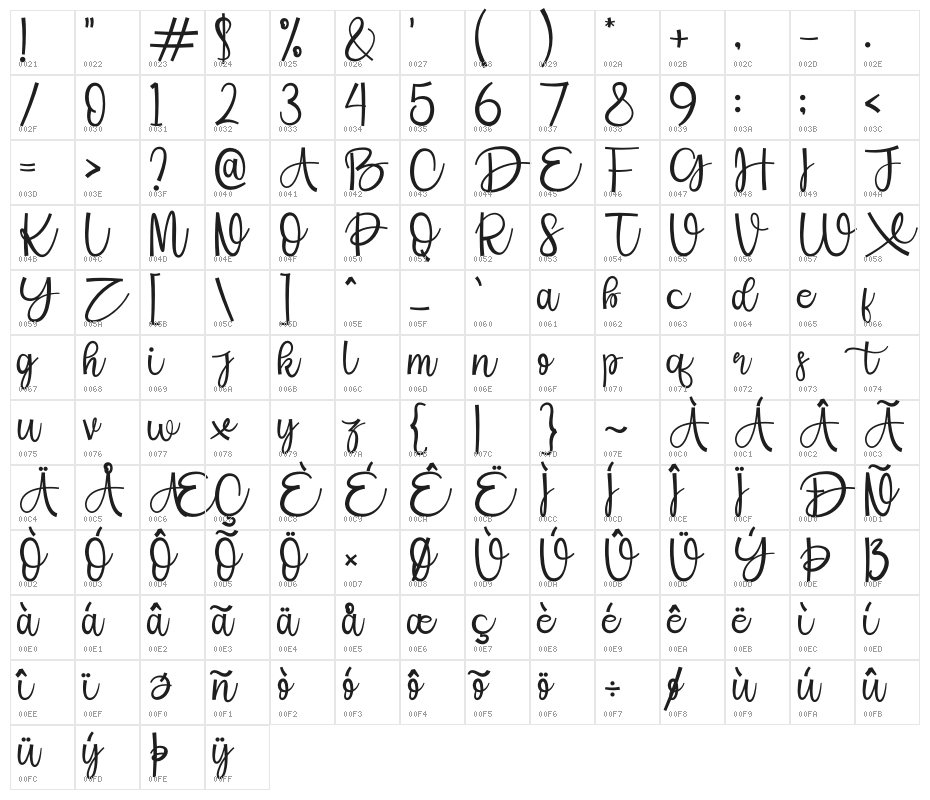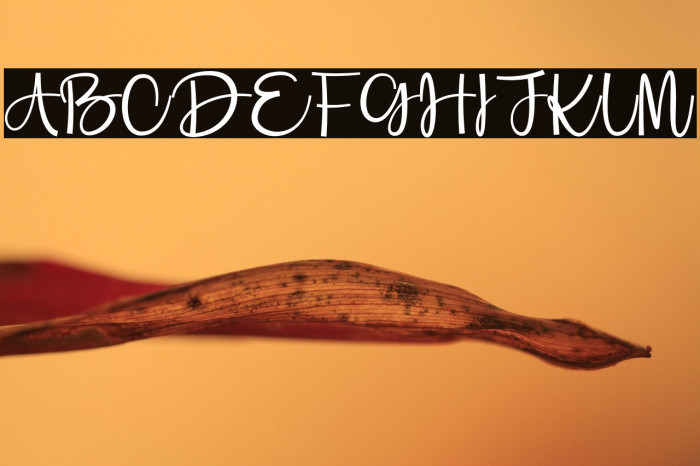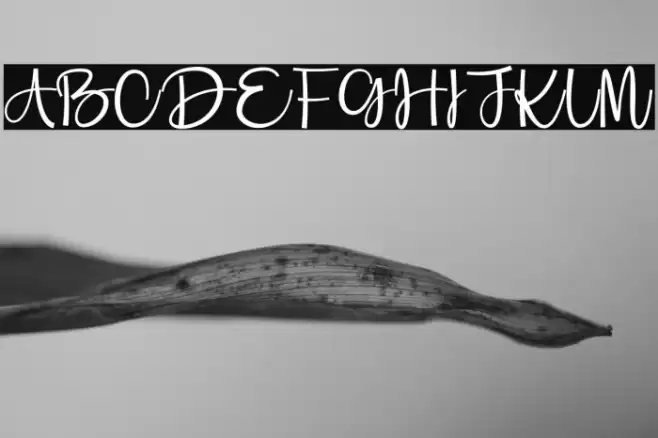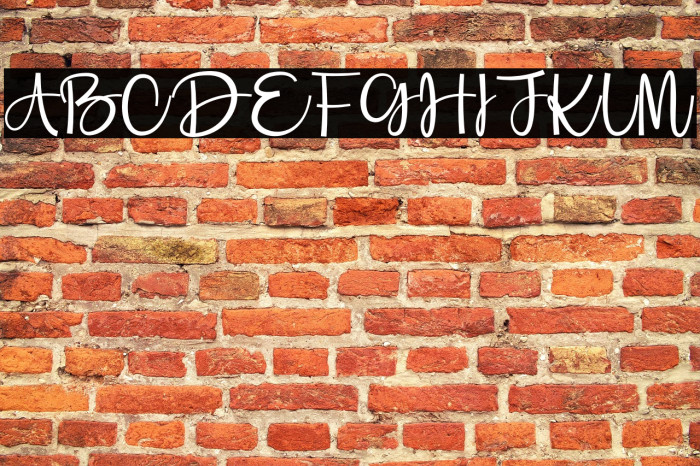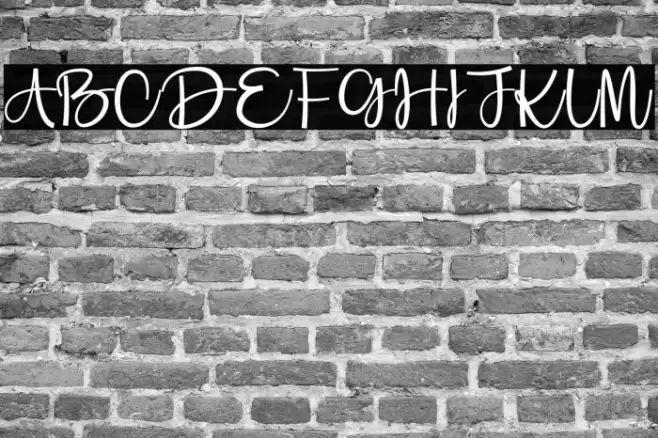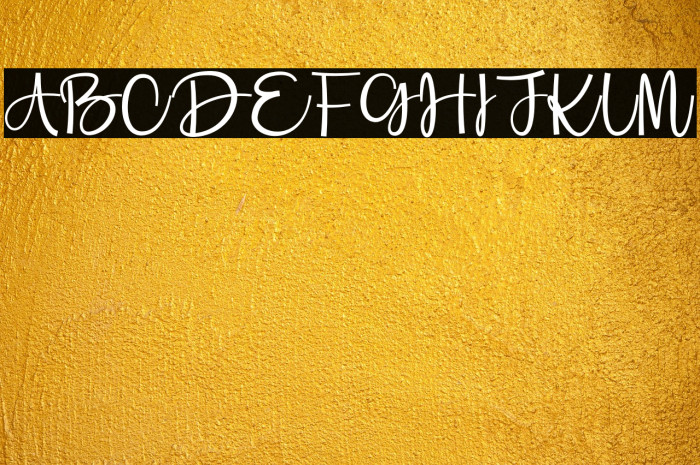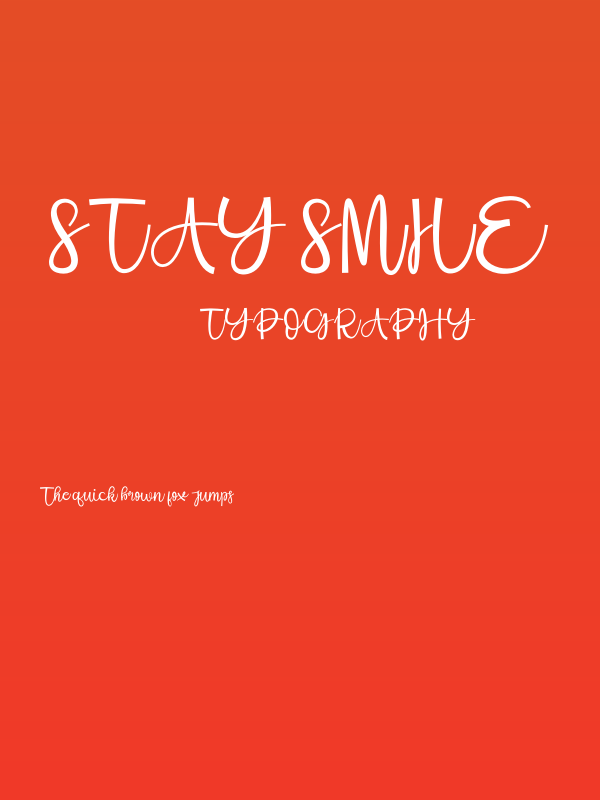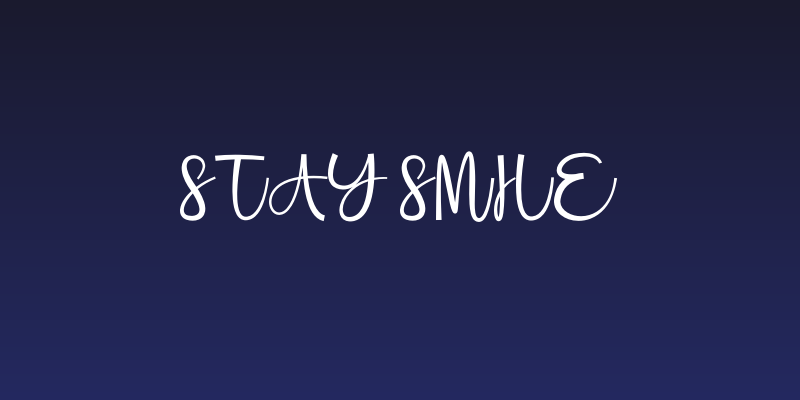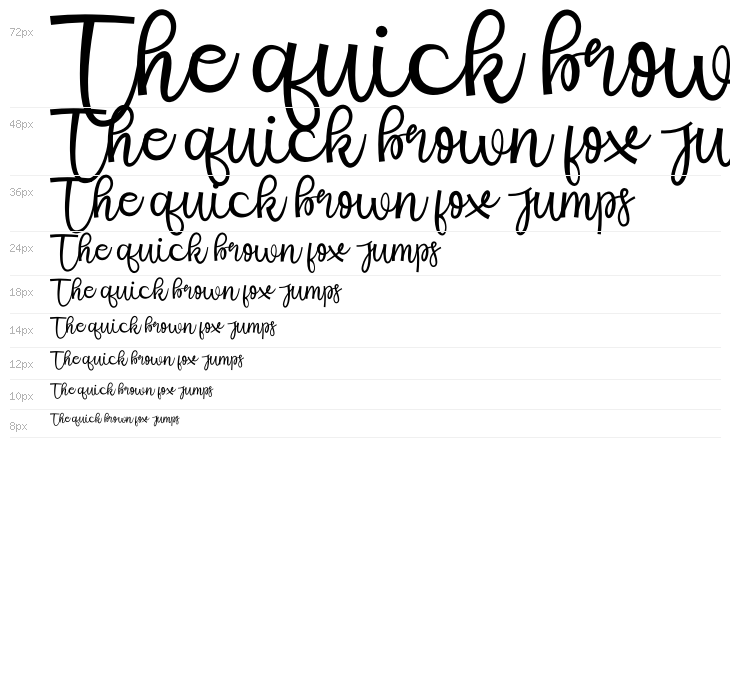
Stay Smile Font
Stay Smile Description
This font features a playful and energetic script style, characterized by its flowing, cursive letters that convey a sense of movement and joy. The uppercase letters are tall and elegant, with a slight slant that adds to the dynamic feel. The lowercase letters are more rounded and compact, maintaining a consistent rhythm throughout the text. Numbers are bold and slightly whimsical, matching the overall playful aesthetic. Special characters are creatively integrated, maintaining the font's lively personality. The strokes vary in thickness, providing a medium contrast that enhances readability while preserving the font's decorative nature.